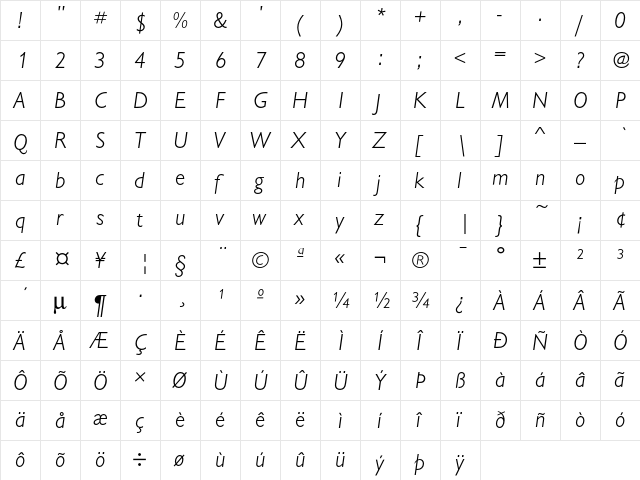
GiltuTLigIta Regular
Design Context for GiltuTLigIta Typeface
GiltuTLigIta offers clean, dependable letterforms without strong stylistic allegiance, making it a practical choice for designers who need flexibility.